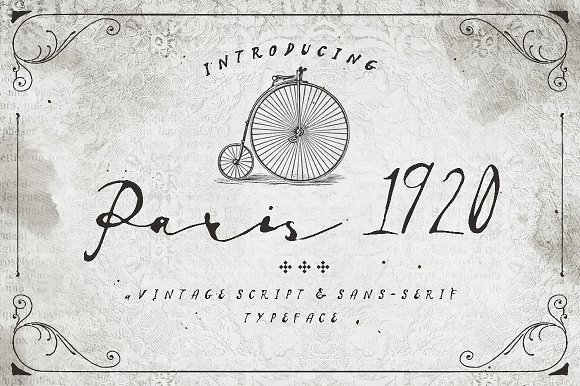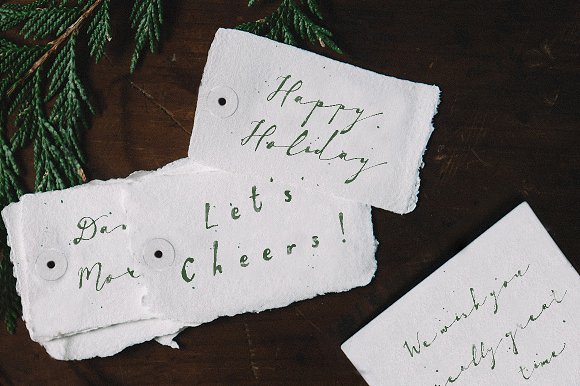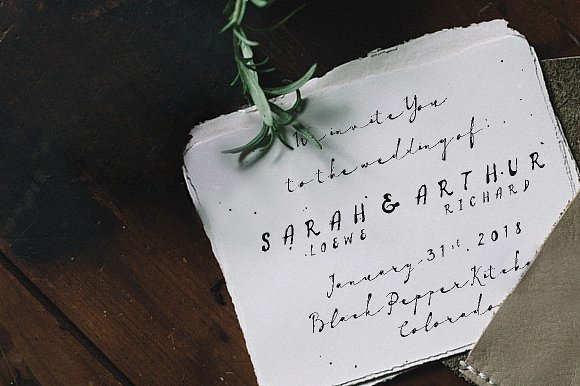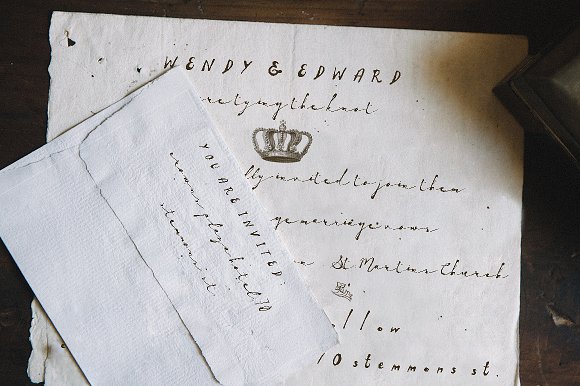
Paris 1920 Font: A Vintage Art Deco Script & Sans Serif for Branding!
About the Paris 1920 Font
From logos to headlines, the Paris 1920 Font is the perfect choice for making a lasting impression. Paris 1920 is a handmade vintage font created by Klapaucius Co.
This stunning font comes in 2 versions:
Paris 1920 Script
Paris 1920 Sans Serif
It features a classic handwriting style and works great for when you need to add character and a personal touch to your designs.
Paris 1920 excels in headline usage, particularly for projects evoking a vintage or Art Deco aesthetic. It’s ideal for branding materials such as logos, short taglines, and packaging design where its handcrafted charm adds personality. However, its script style is less suitable for body text or UI elements; the intricate details can become illegible at smaller sizes.
The “Sans Serif” version offers more versatility, working well in short paragraphs or as a supporting font alongside the script. Pair the script with a clean, geometric sans-serif for a modern contrast, or a classic serif like Garamond for a more traditional feel. For the sans-serif version, consider pairing it with a playful script font for visual interest or a minimalist sans-serif like Helvetica for a sophisticated look.
The overall personality of Paris 1920 is elegant yet approachable; bold without being aggressive. It is best suited for brands aiming for a sophisticated yet friendly image, perhaps in the fashion, beauty, or lifestyle sectors.
Paris 1920 Font Usage Examples
Paris 1920 Font Example